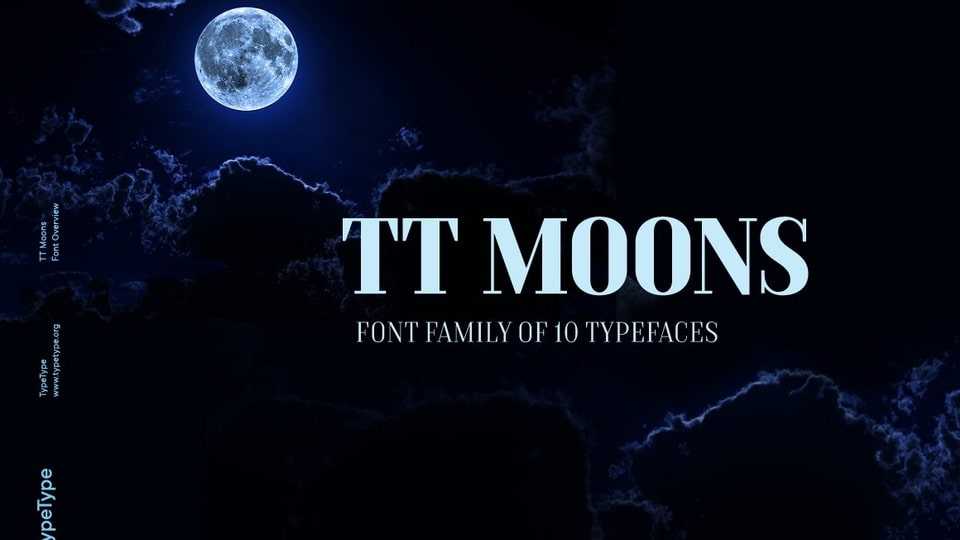
Download TT Moons font, a slim and contrast serif typeface. It works especially smart in classic design themes. The ideal application range for TT Moons typeface is magazines, books and newspapers layout.
Designer: TypeType Team